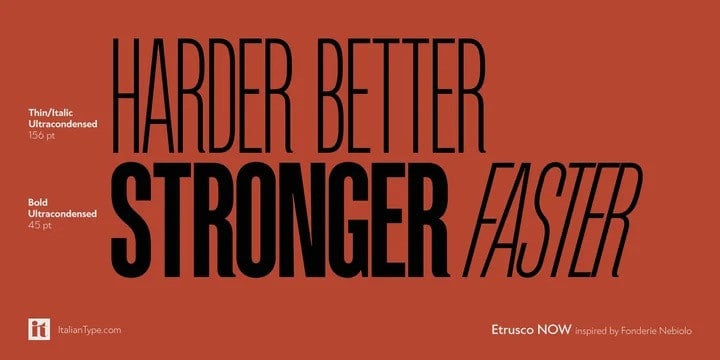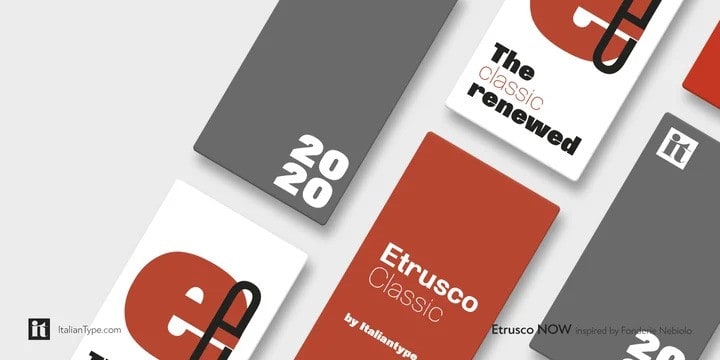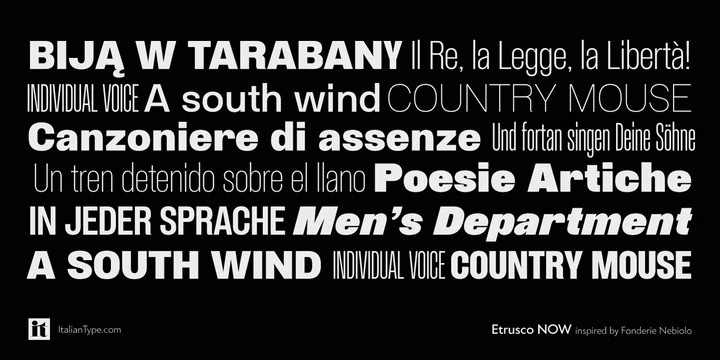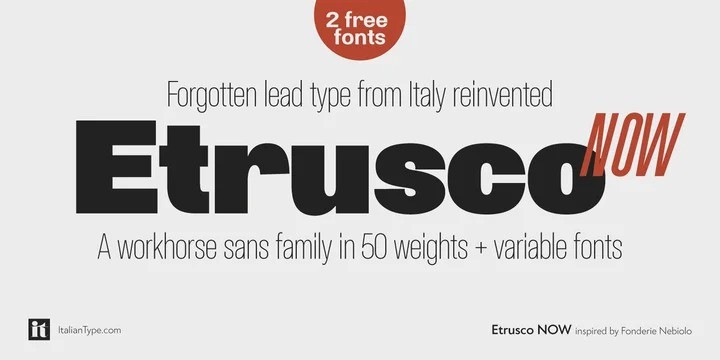
Etrusco Now Sans Serif Font
Etrusco Now Sans Serif Font is a cool, fashionable and powerful modern sans serif font, designed for being used in titles and document. And it’s the revival of a lead typeface originally cast in lead by Italian foundry Nebiolo in the early 1920s. Heavily inspired by the design of the Medium weight of Schelter & Giesecke’s Grotesk, Etrusco was, like Cairoli, an early precursor of the modernist grotesque superfamilies: a solid, multi-purpose “work-horse” typeface family that could solve a wide range of design problems with its range of widths and weights.
When designing the new incarnation of Nebiolo’s Etrusco, the Italiantype team directed by Cosimo Lorenzo Pancini and Mario de Libero decided to extend the original weight and width range to keep this “superfamily” approach. Etrusco Now has twenty-one styles widths in three widths of seven weights each, with matching italics; the original weights for the typeface have been collected in the Etrusco Classic subfamily.
Etrusco Now new widths allowed the team to include in the design many nods and homages to other vintage classics of Nebiolo. The lighter weights of the normal width have been heavily influenced by the modernist look of Recta, while the heavy condensed and compressed widths refer to the black vertical texture of Aldo Novarese’s Metropol. This infuses the typeface with a slightly vintage mood, making Etrusco at the same time warmly familiar and unexpected to eyes accustomed to the formal and cold look of late modernist grotesques like Helvetica.